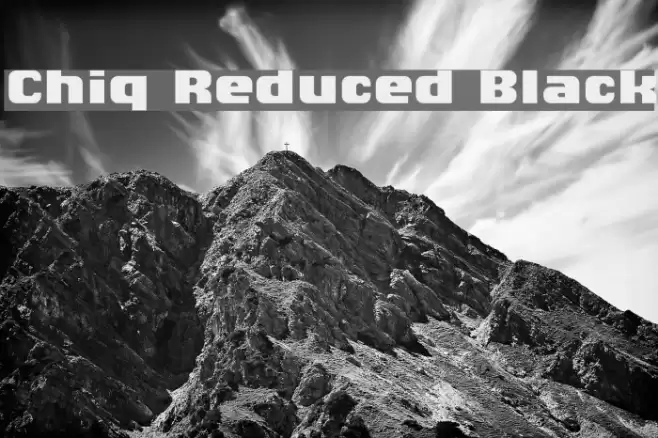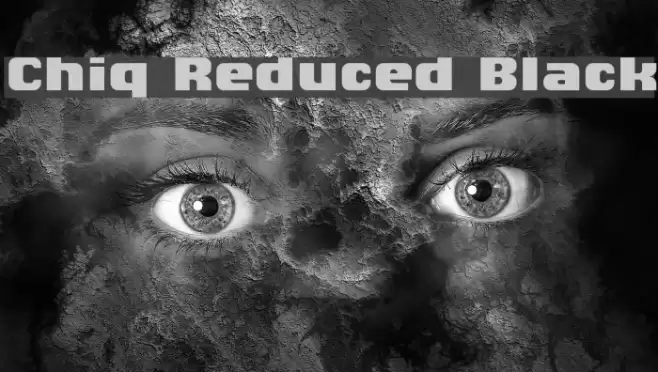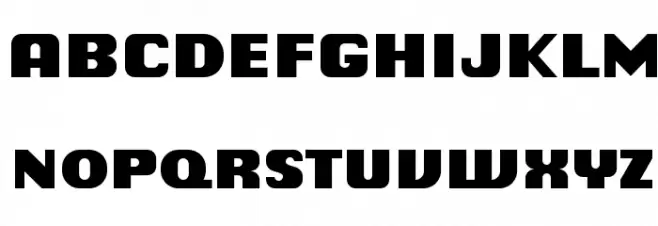
Chiq Reduced Black Font
Chiq Reduced Black Description
This font features bold, geometric letterforms with a strong presence. The characters are constructed with thick strokes and minimal contrast, giving them a robust and modern appearance. The uppercase and lowercase letters maintain a consistent style, with rounded edges that soften the overall look. The font's design is clean and straightforward, making it suitable for a variety of applications. The numbers and special characters are equally bold and well-integrated, ensuring uniformity across all text elements. This font is ideal for projects that require a strong visual impact.
A bold, geometric font with rounded edges and minimal contrast from Uncategorized fonts.
- Proposed Projects: Ideal for branding, headlines, posters, and signage where a strong, modern look is desired.